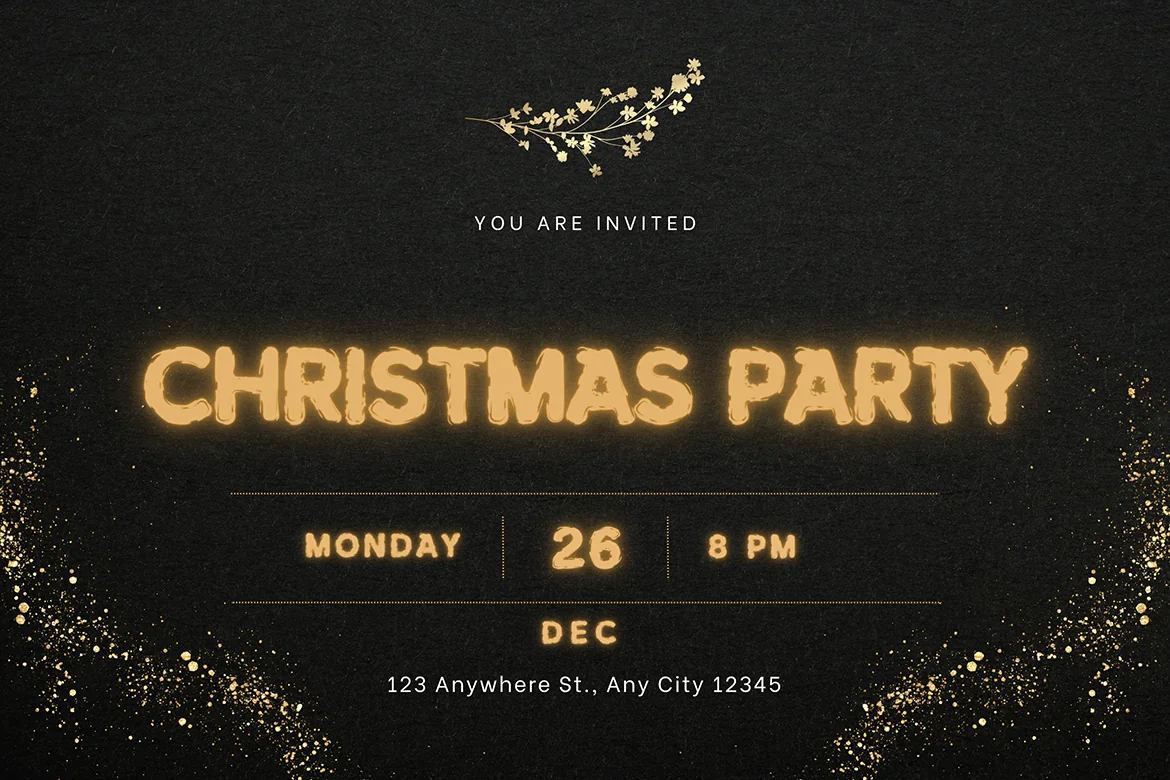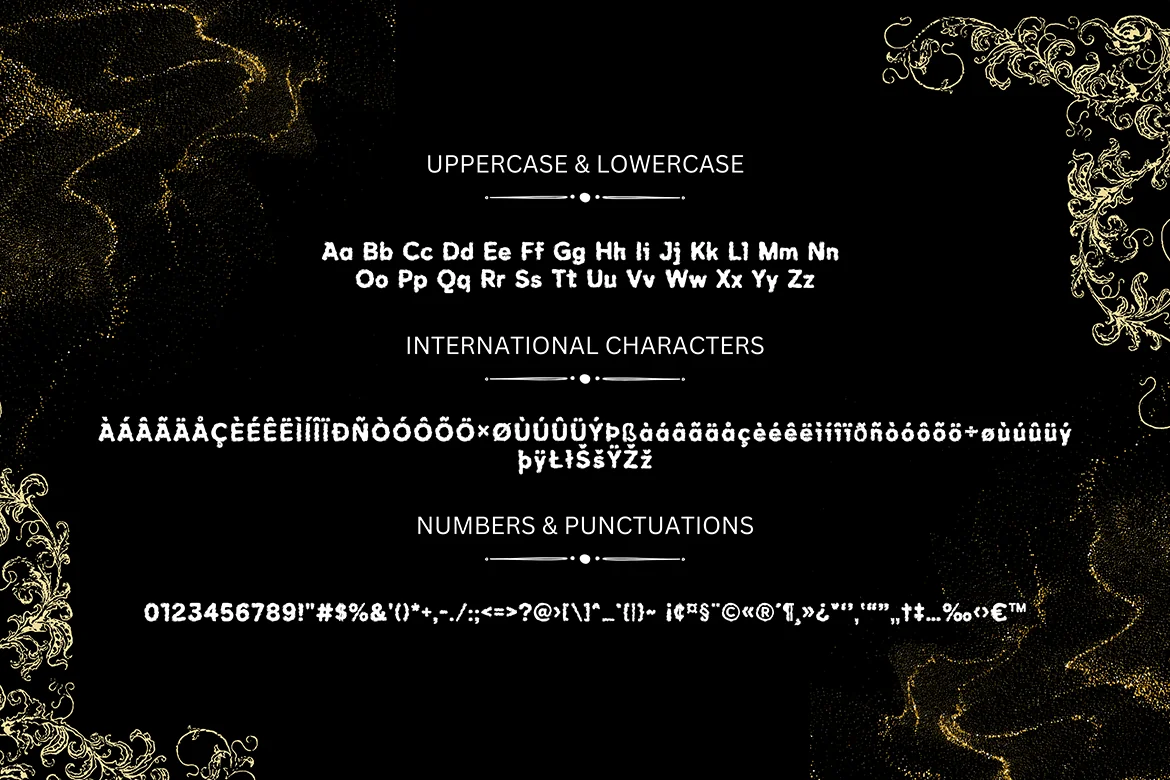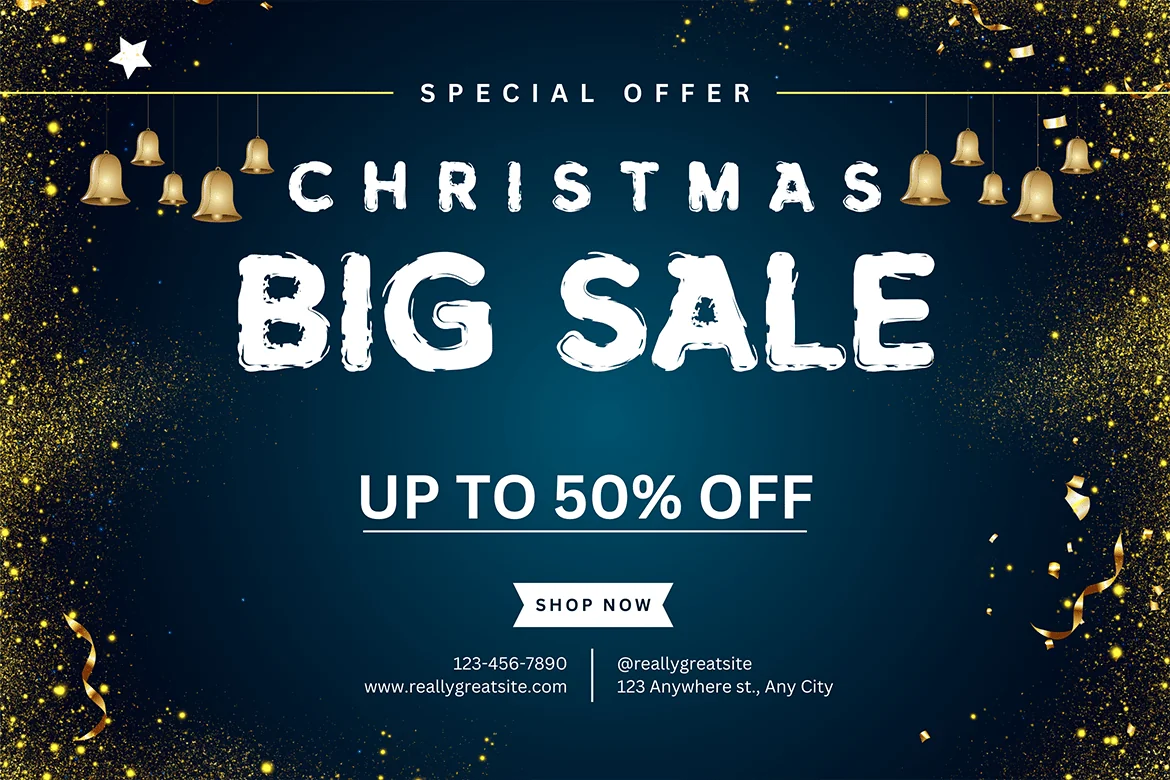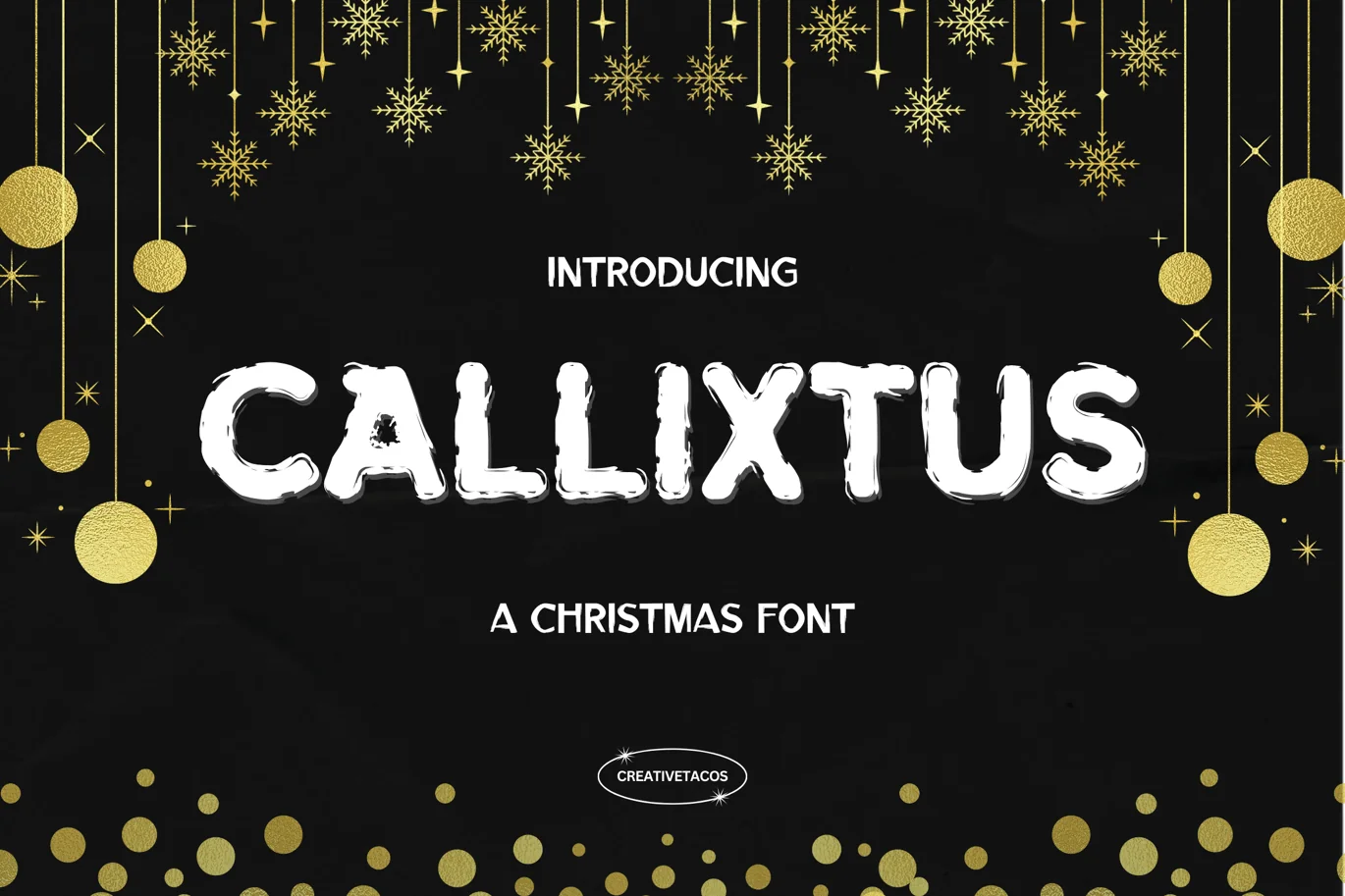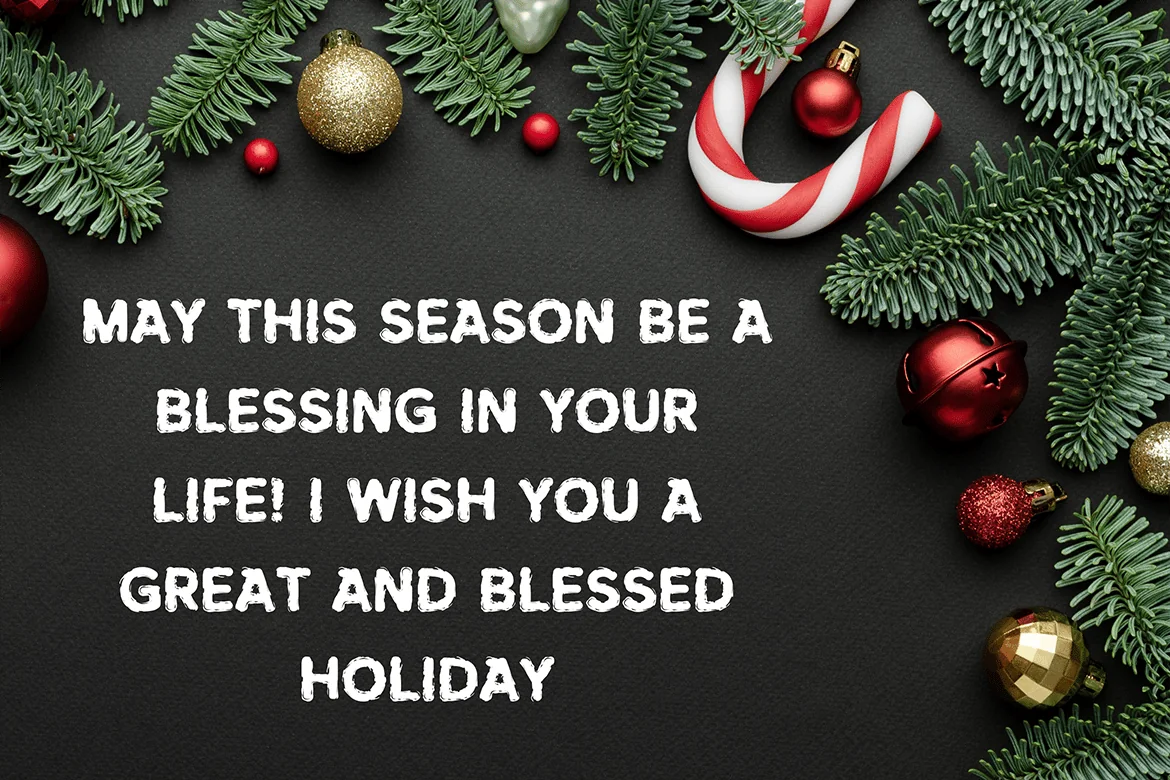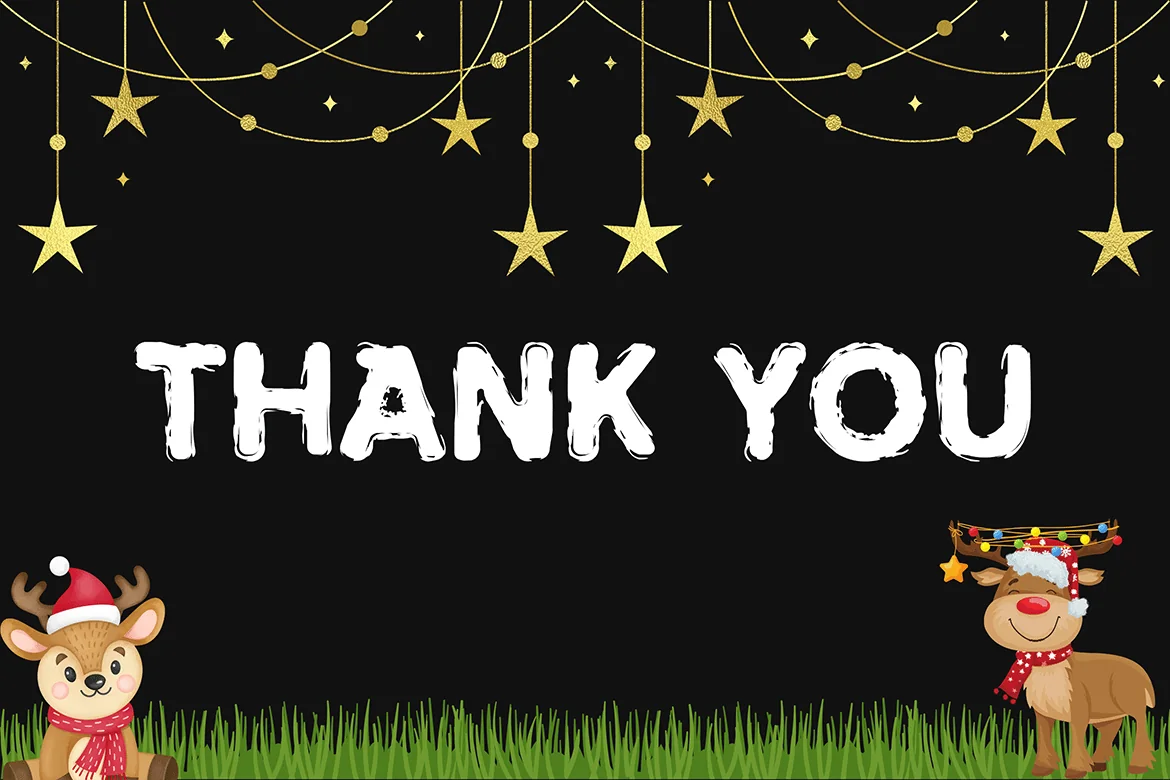
Callixtus Christmas Font
The Callixtus Christmas Font is a gorgeous and eye-catching handwritten brush font that brings a modern, playful vibe to your upcoming holiday designs.
It features all you need – uppercase, lowercase, numbers, punctuation, and symbols, and even supports multiple languages.
Azeez is your go-to font for just about anything! Use it for christmas invitation, packaging, slideshows, logos, headlines, lettering, posters, branding, inspirational quotes, titles, magazine layouts, website designs, ads, invites, packaging design, book covers, and any other creative endeavor you can think of.
- Big Letters (Uppercase)
- Small Letters (Lowercase)
- Numbers & Symbols
Here’s a sneak peek at the characters supported:
- All the letters from A-Z (uppercase and lowercase)
- All the numbers from 0-9
- All these special characters – !”#$%&'()*+,-./:;=?@›[]^_`{|}~ ¡¢¤§¨©«®´¶¸»¿ˇ‘’‚‛“”„†‡…‰‹›€™
- And a range of international characters like ÀÁÂÃÄÅÇÈÉÊËÌÍÎÏÐÑÒÓÔÕÖרÙÚÛÜÝÞßàáâãäåçèéêëìíîïðñòóôõö÷øùúûüýþÿŁłŠšŸŽž